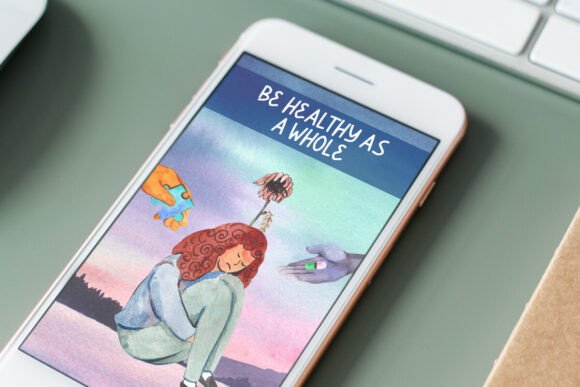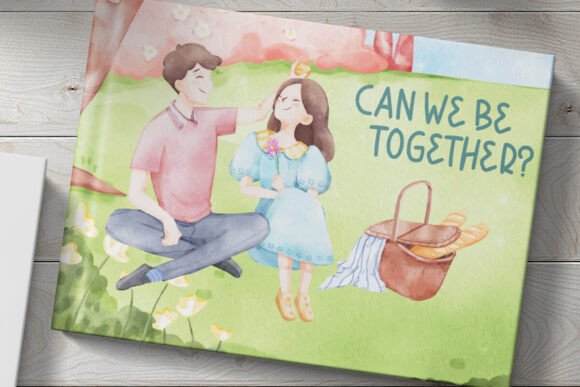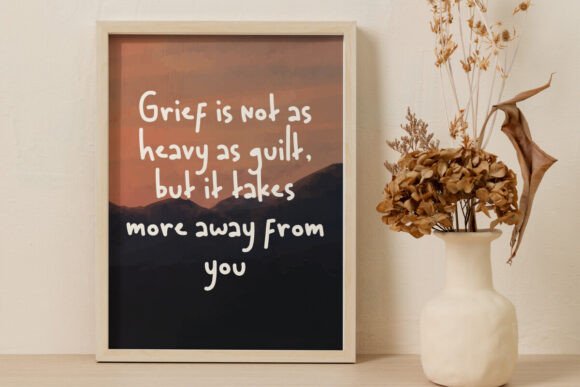
Introduction to Sad Ending Font
Sad Ending Font is a casual romantic handwriting display font created in a cute style.
It looks clean with a neat arrangement made by hand, producing letters that are easy to read It will bring a different touch to whatever your design is, such as apps, blogs, brochures, covers, flyers, headers, logos, packaging design, posters, price labels, quotes, screen print, signage, stationery, stickers, titles, website, and more.